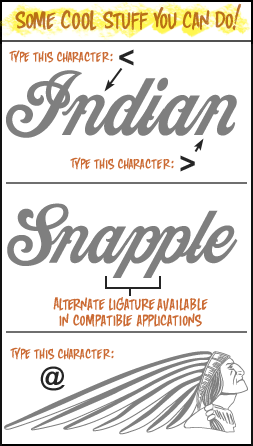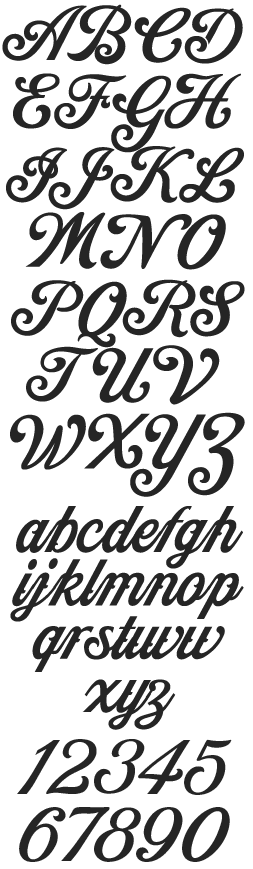
LHF Indian Script Inspired by the classic Indian Motorcycle logo. Includes several alternates and special OpenType ligatures. Free bonus .eps vector file with classic Indian lettering and indian head (emailed after order).